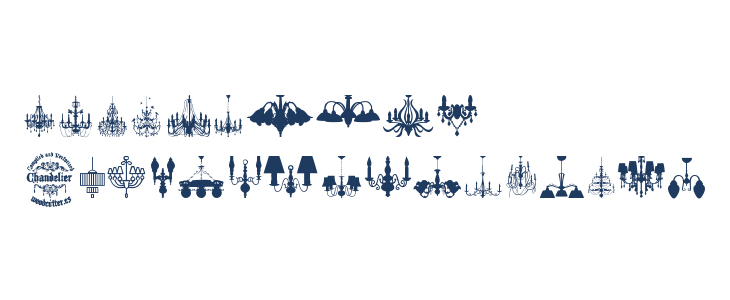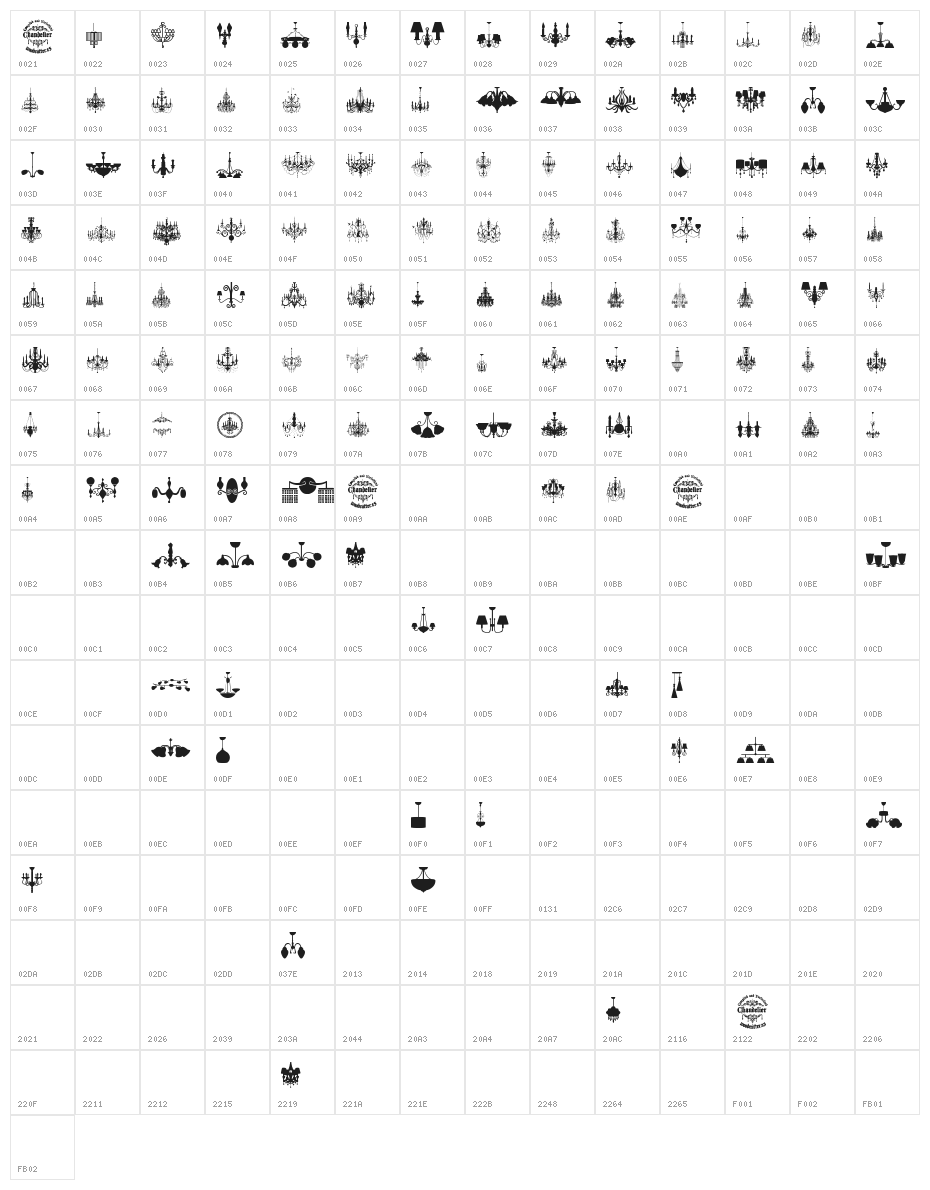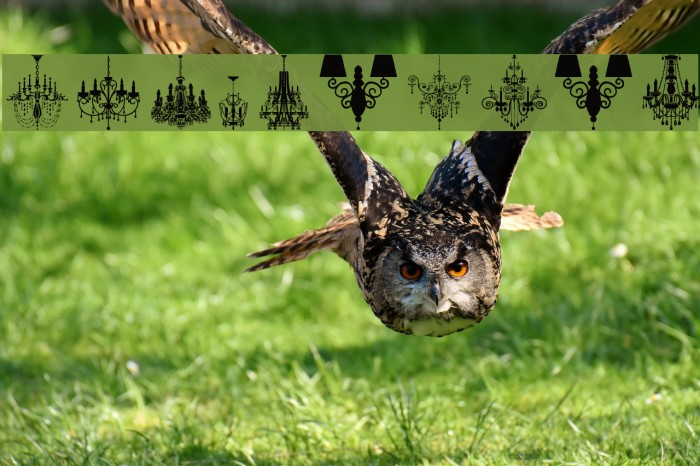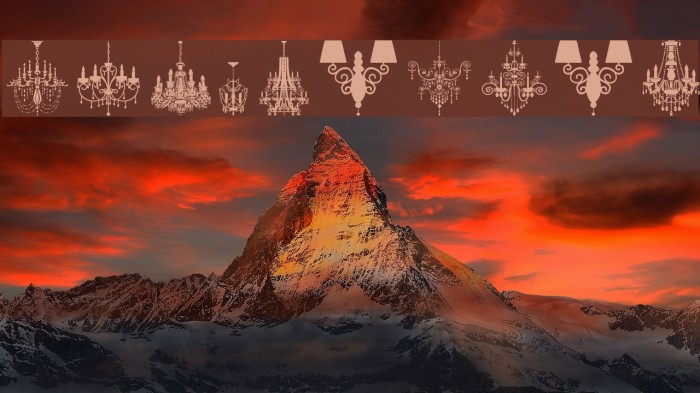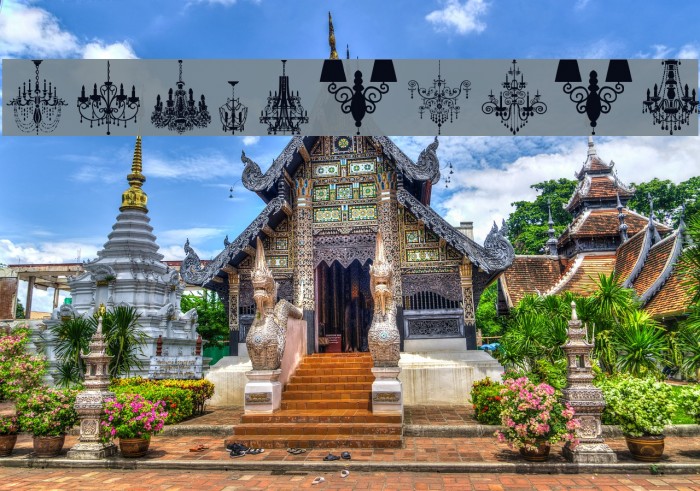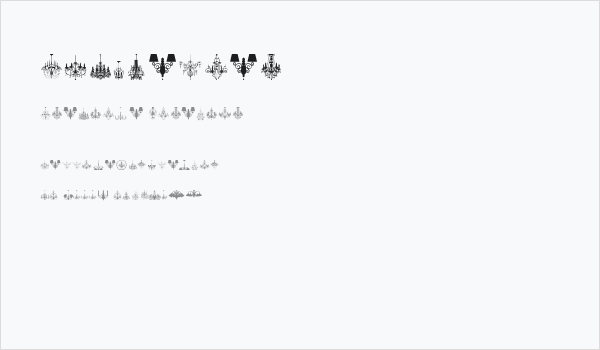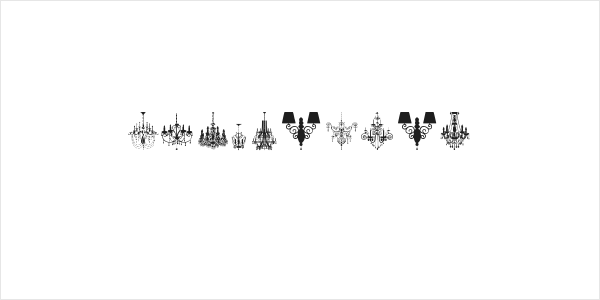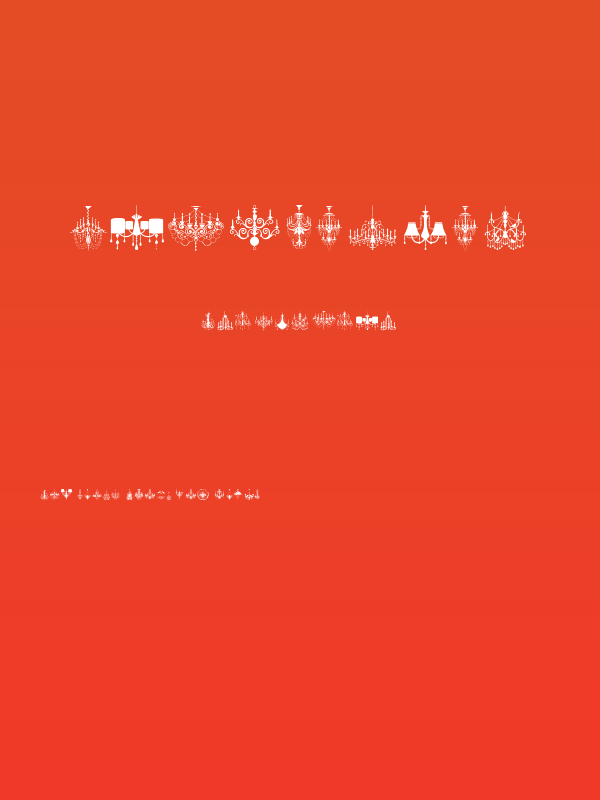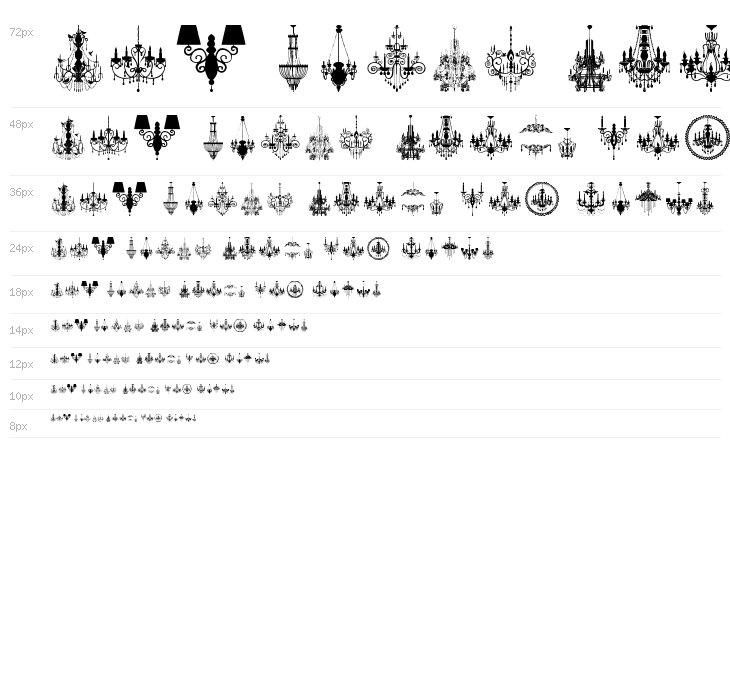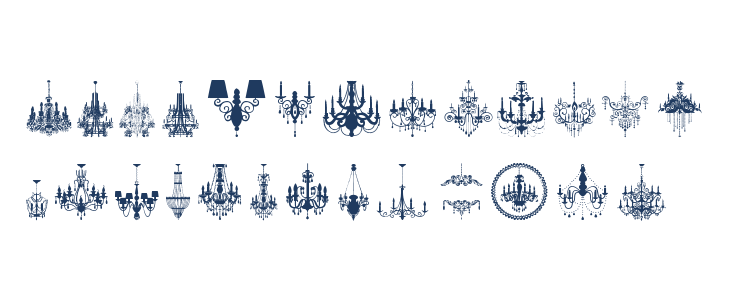
Chandelier Font
Chandelier Description
This is not a font; it is a collection of chandelier silhouette illustrations, each with unique ornate and decorative designs, presented in a grid layout.
| Overall Style | Decorative, Ornate, Vintage |
| Use Case | Icons, Decorative elements, Branding, Invitations |
| Proposed Projects | Home decor catalogs, event invitations, logo design for lighting companies, decorative posters. |